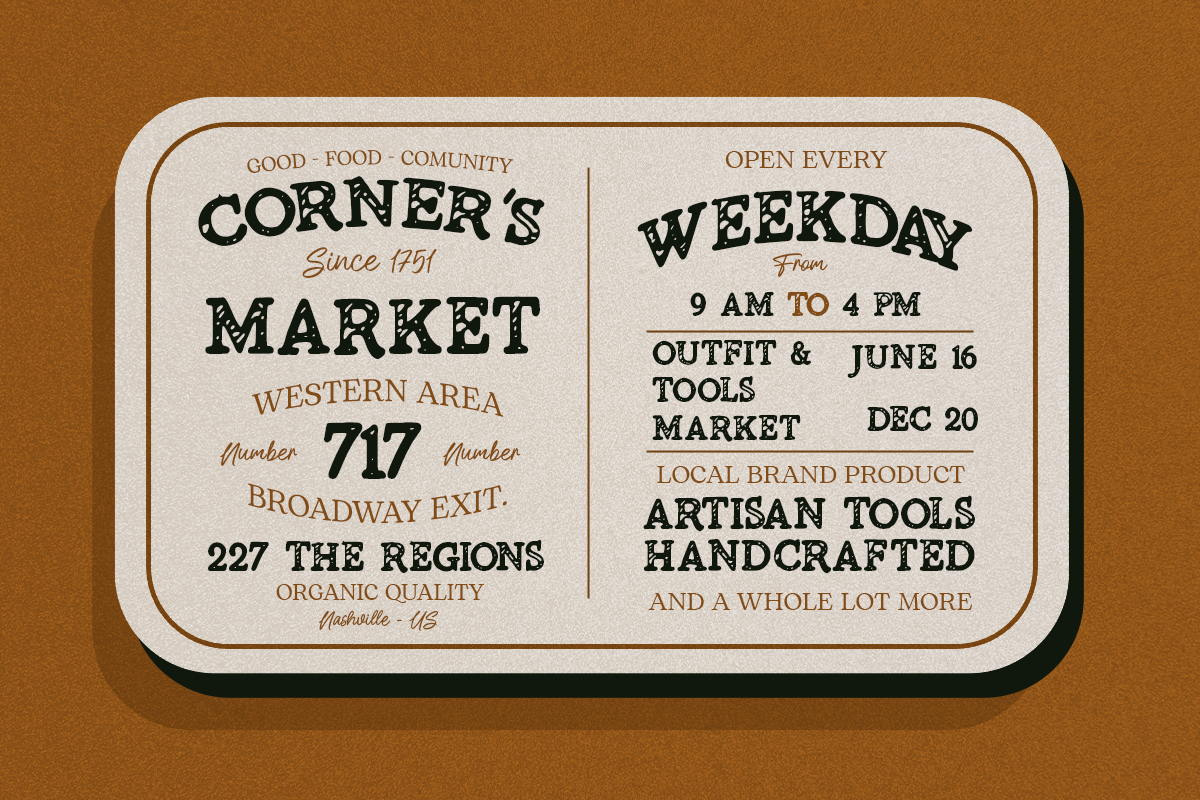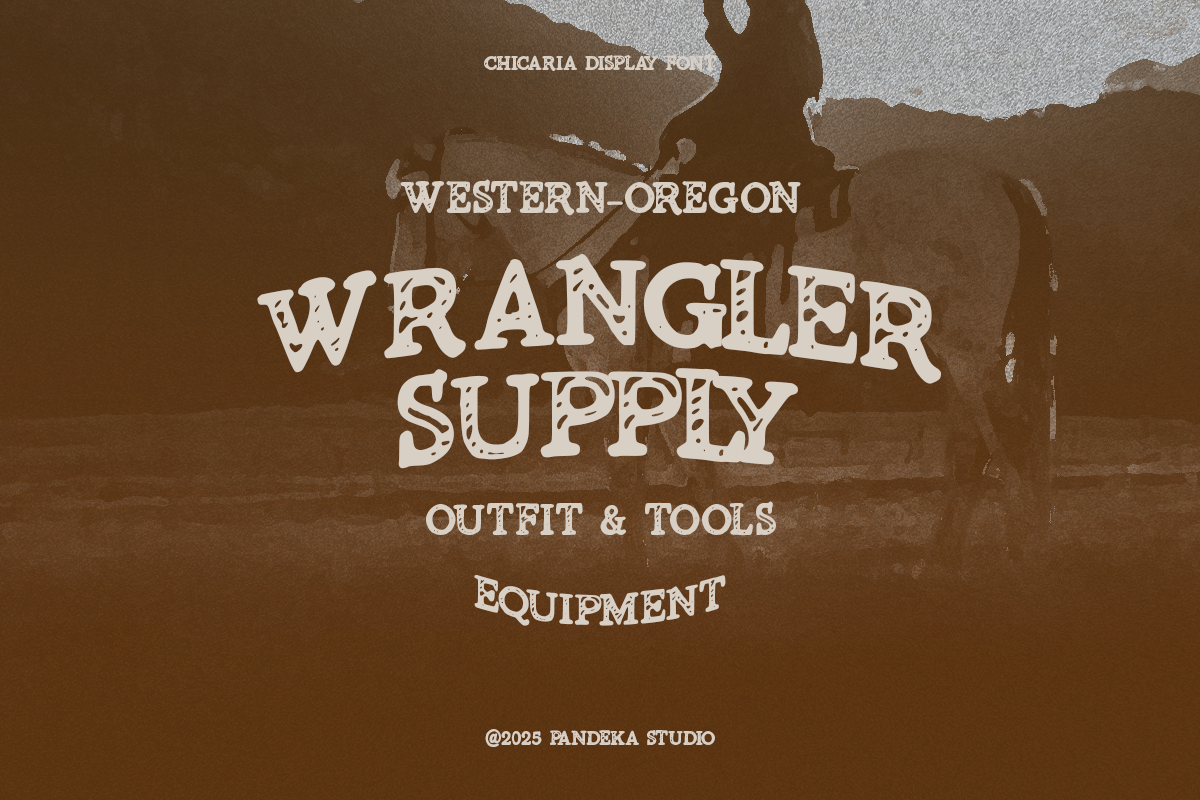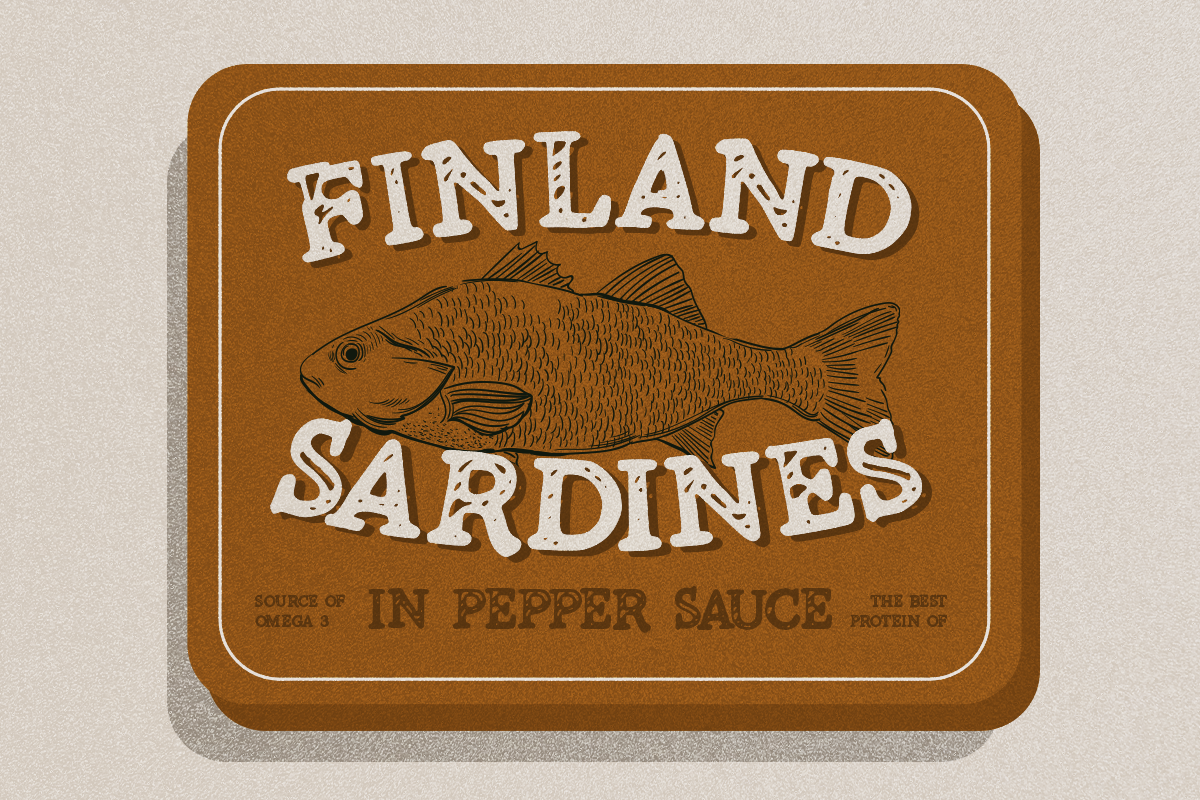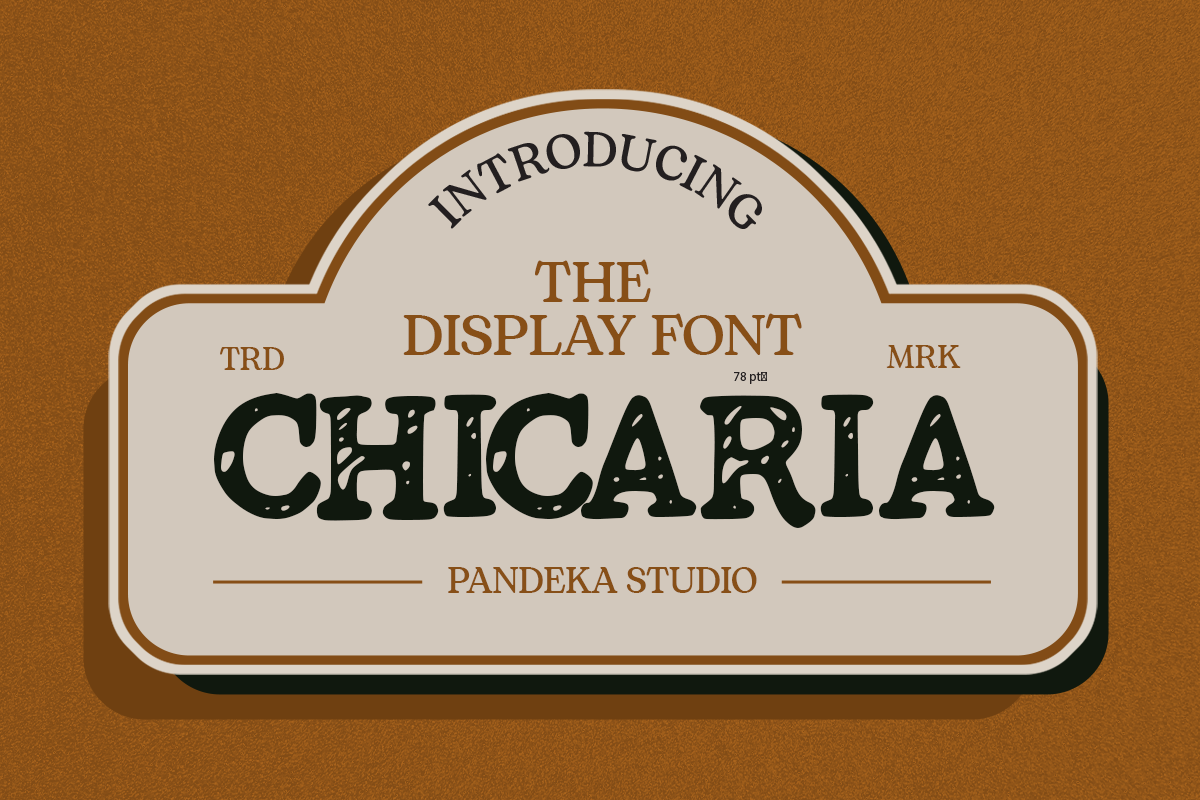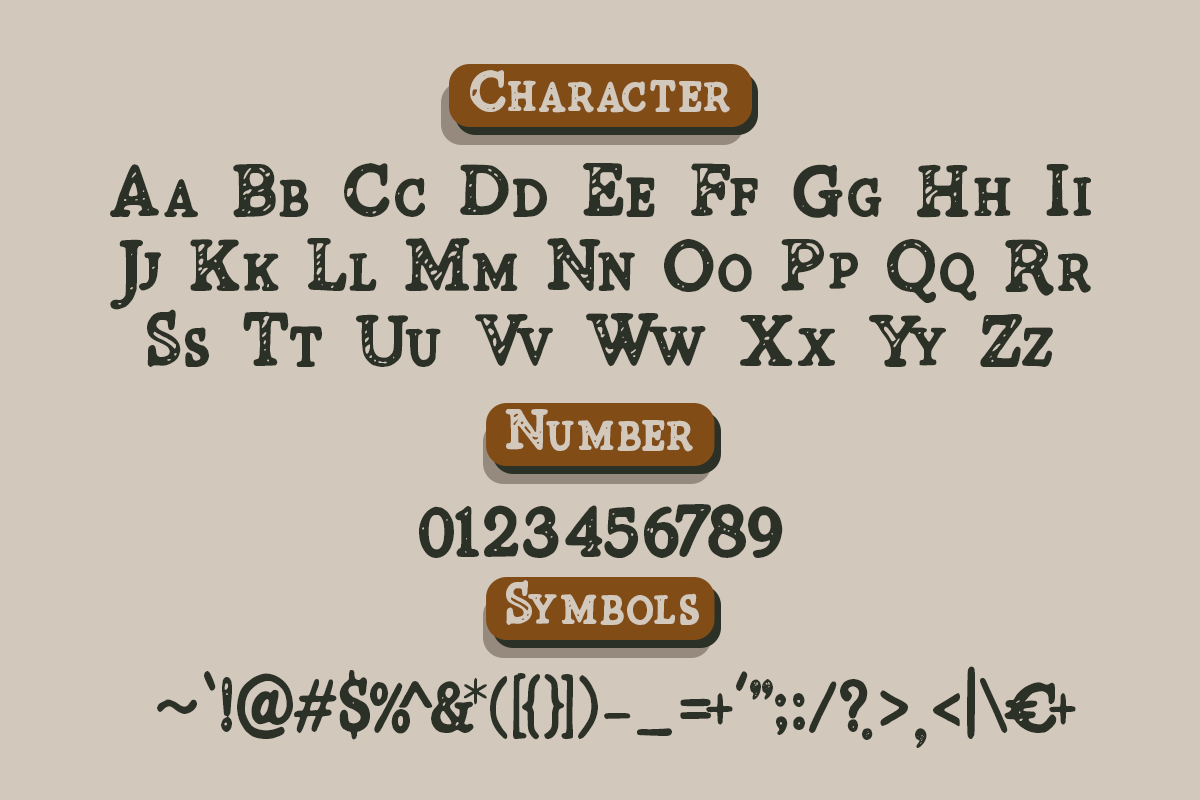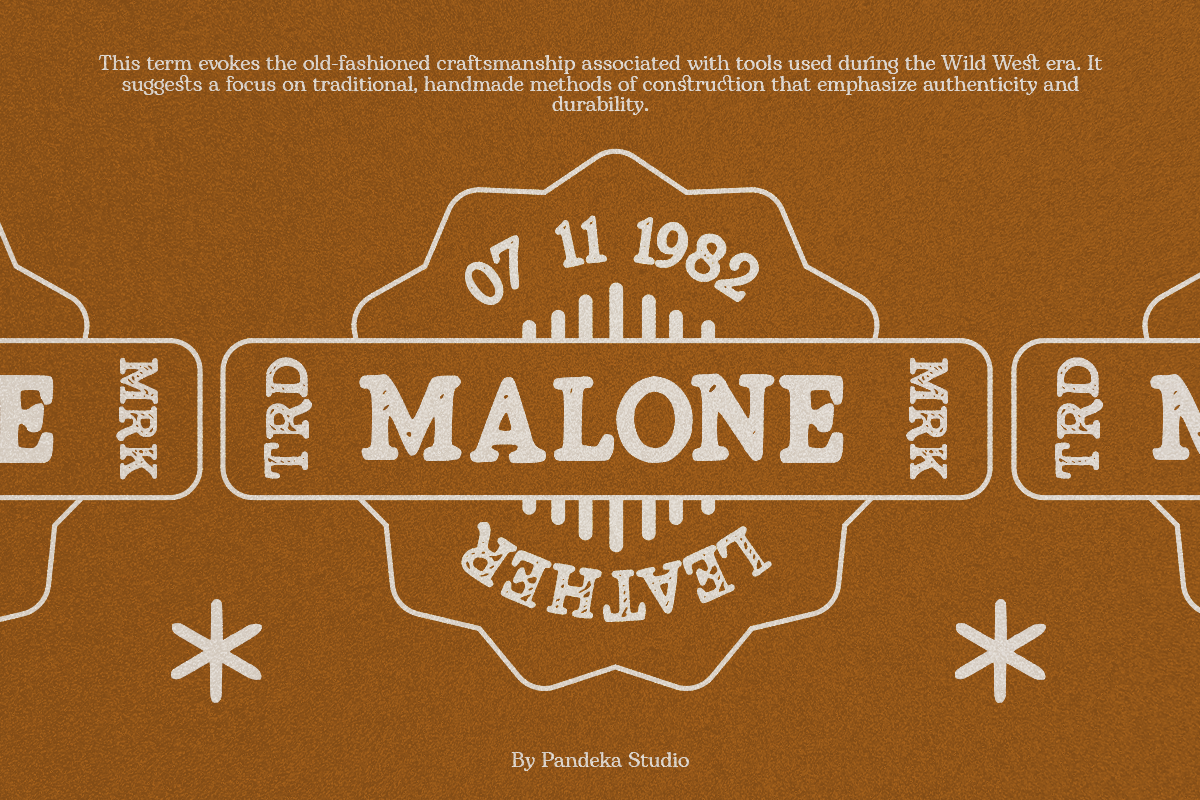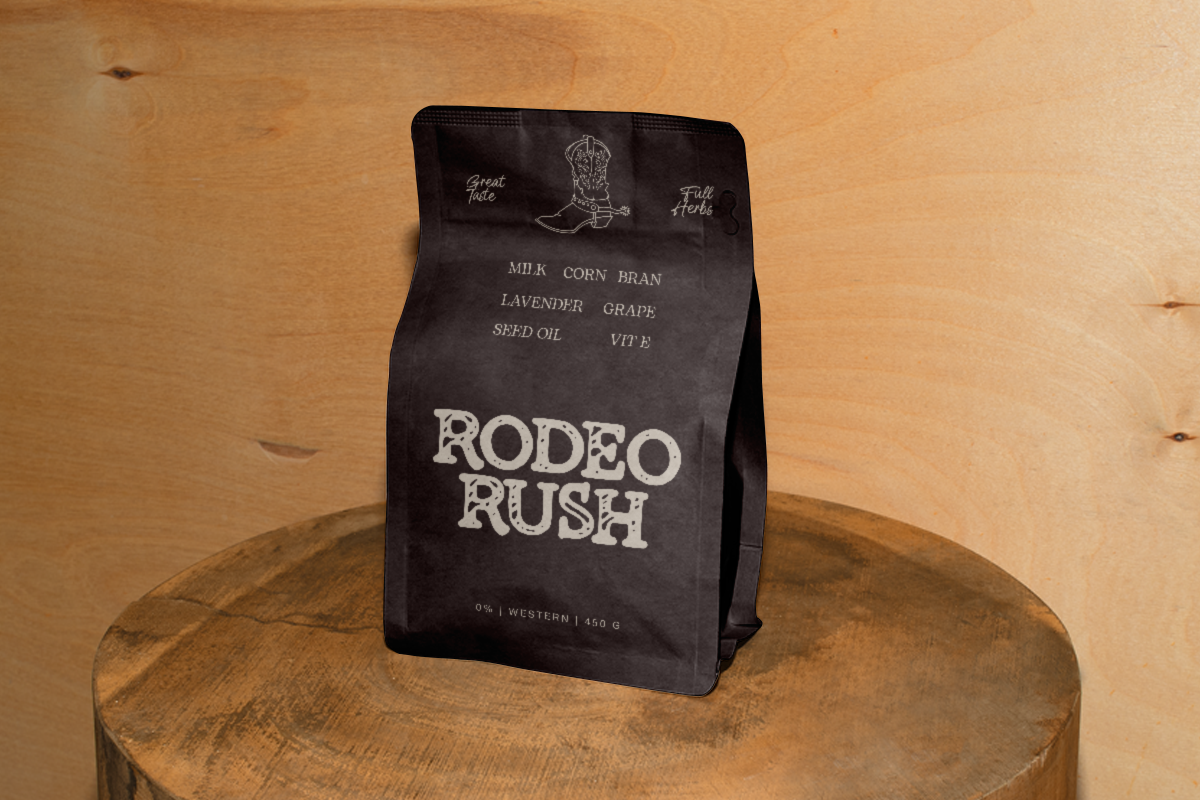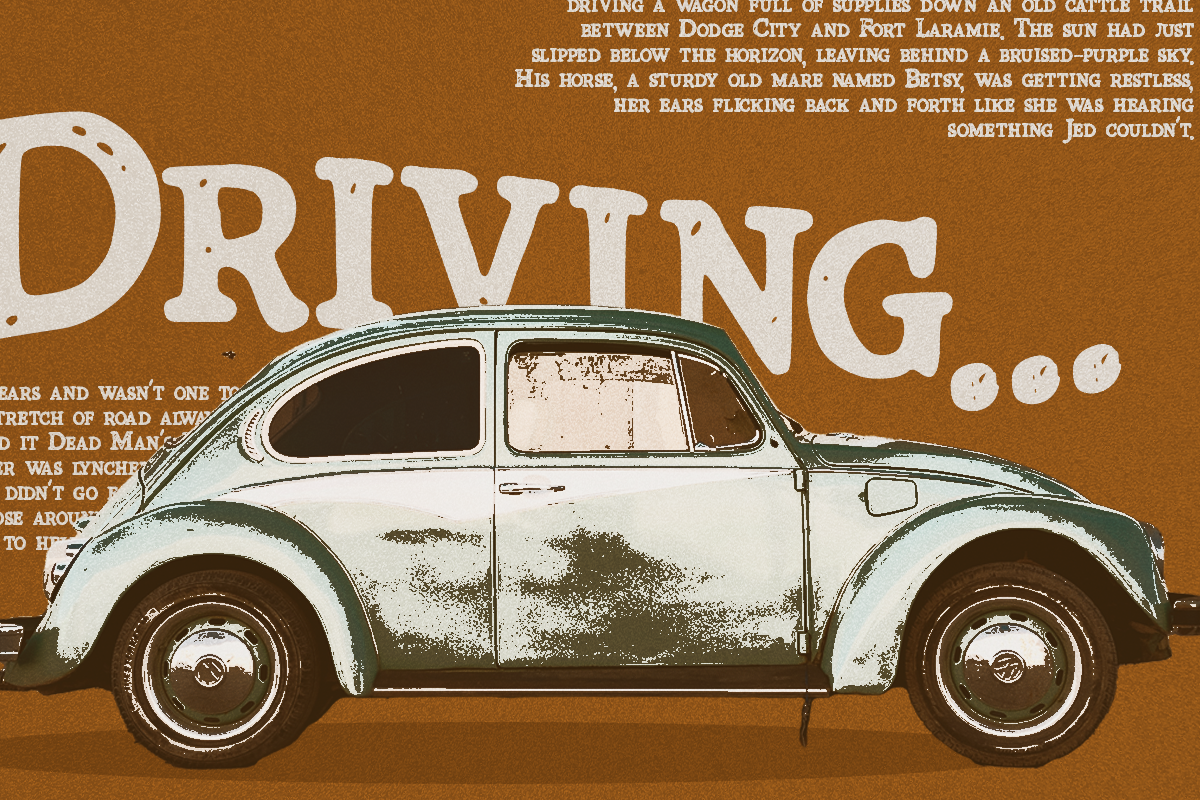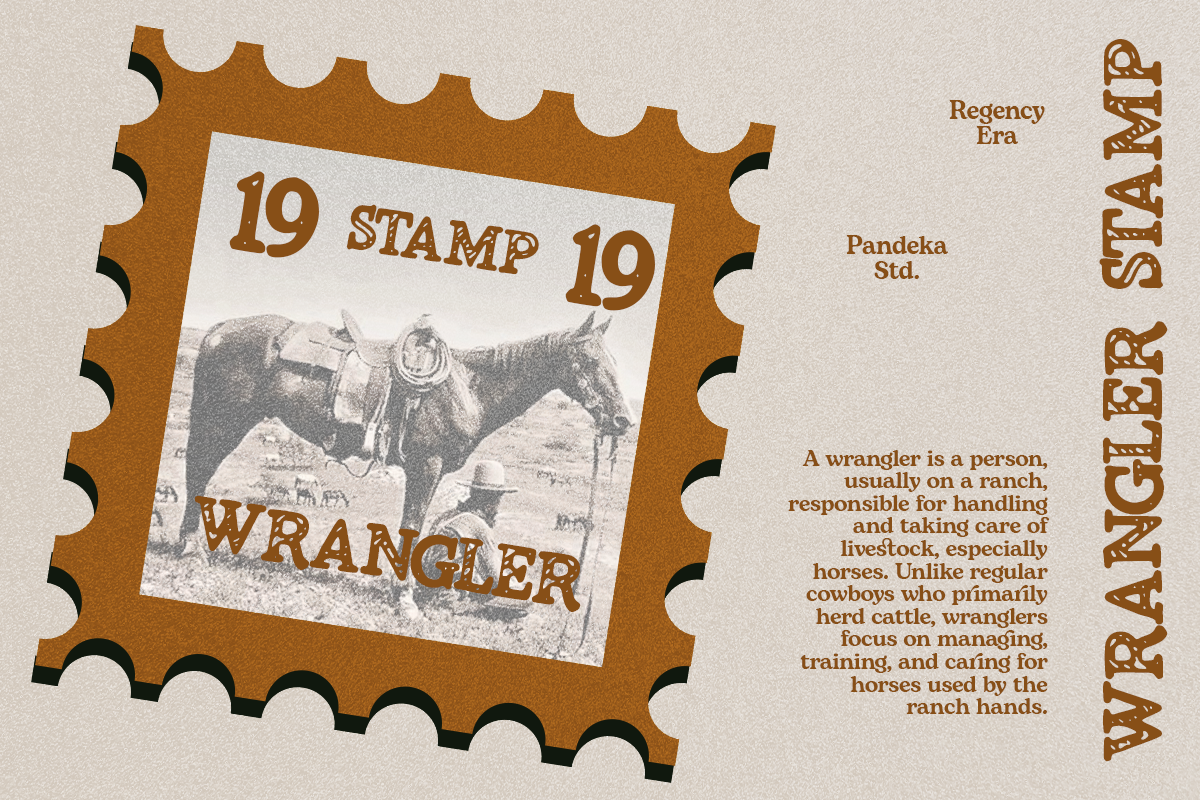
Chicaria - Vintage Display Font
Chicaria - A bold vintage display font that combines classic typography with retro aesthetics and timeless elegance. Perfect for vintage-inspired designs, Chicaria adds a unique and playful touch to bold lettering, packaging, posters, and branding. Its rough stamp effect and elegant style make it a standout choice for projects that demand a mix of nostalgia and modern flair.